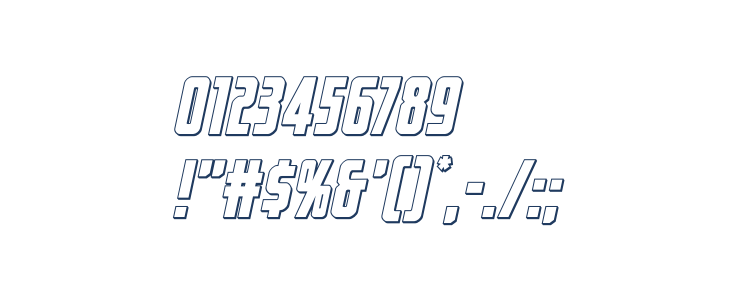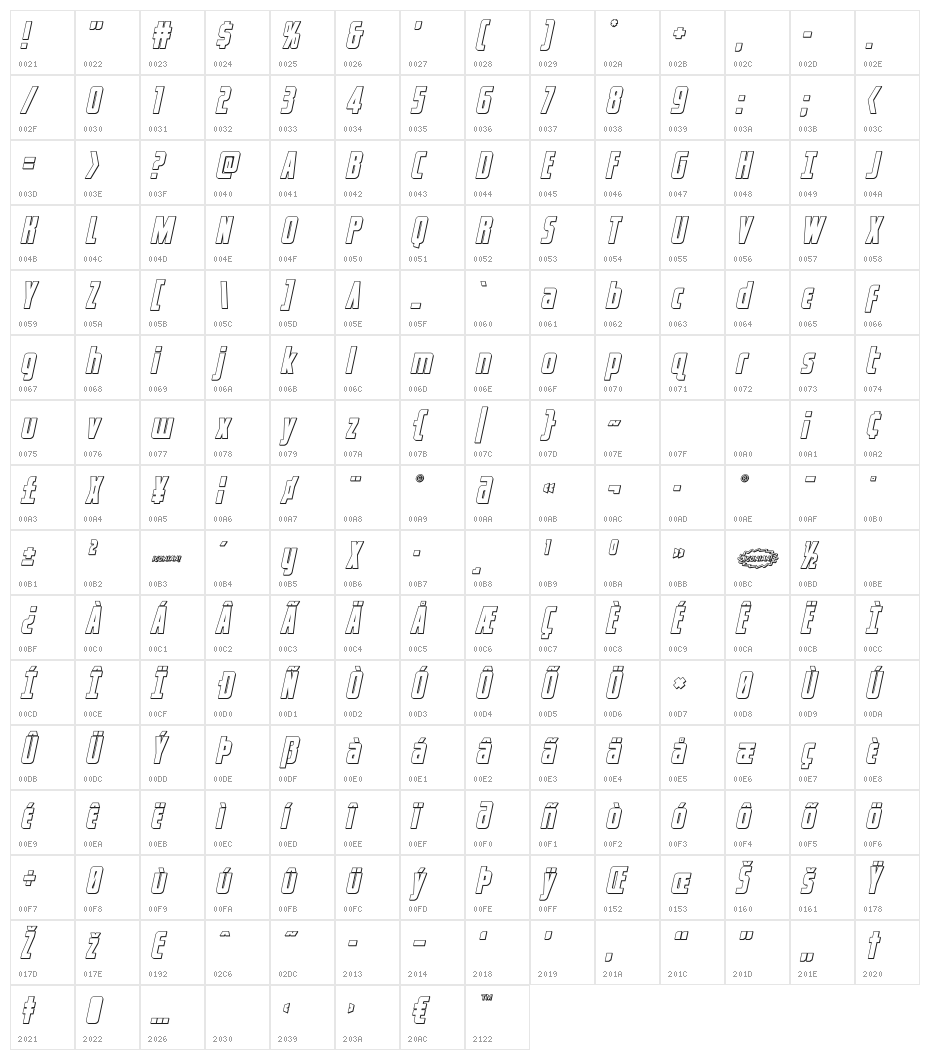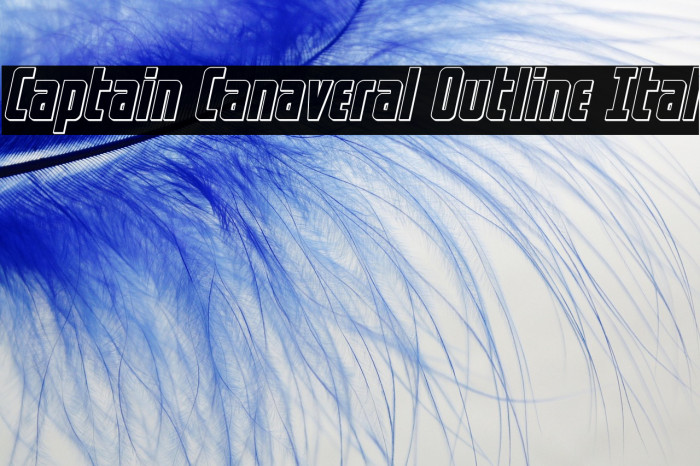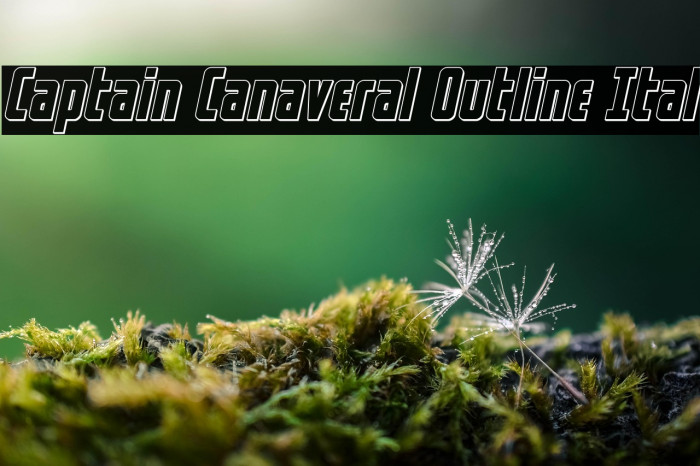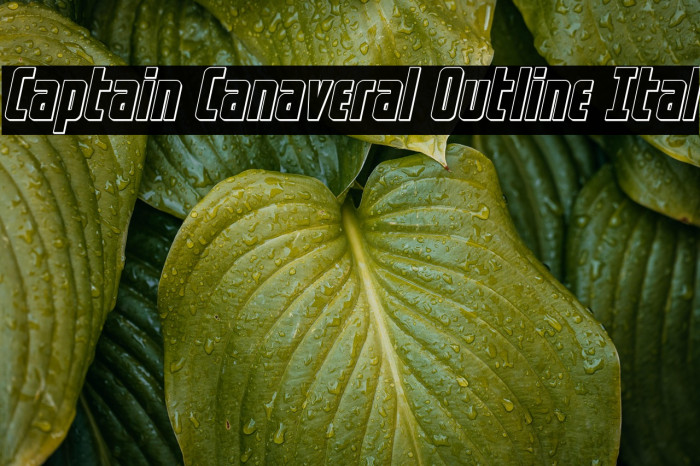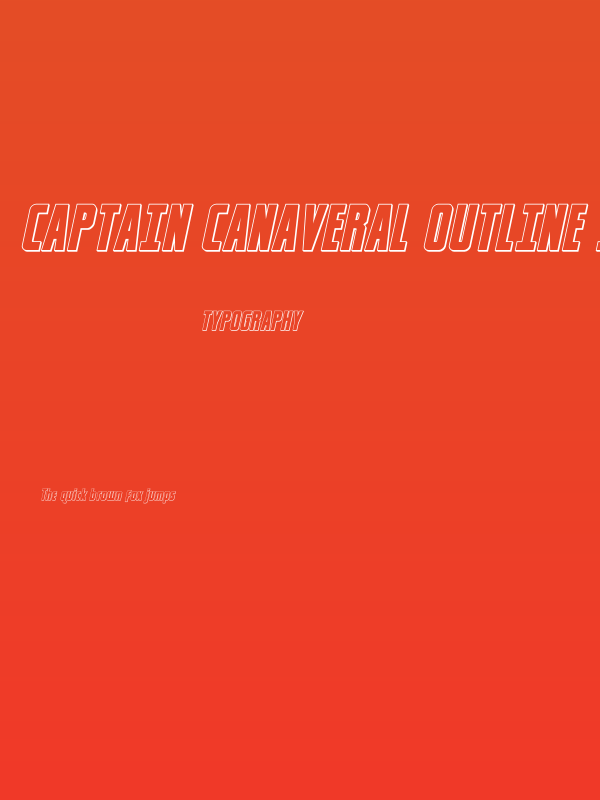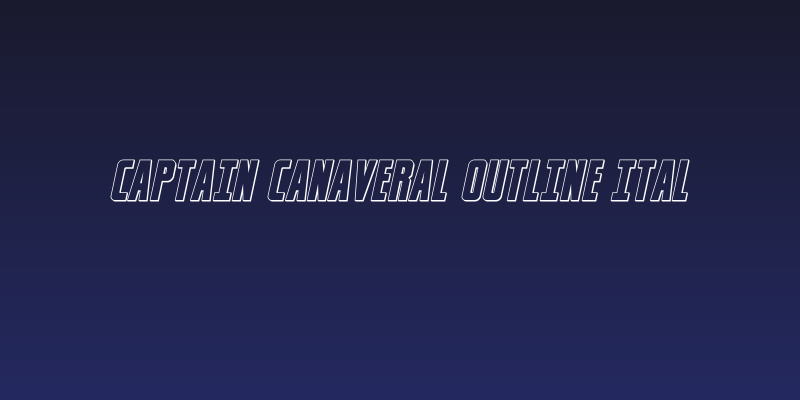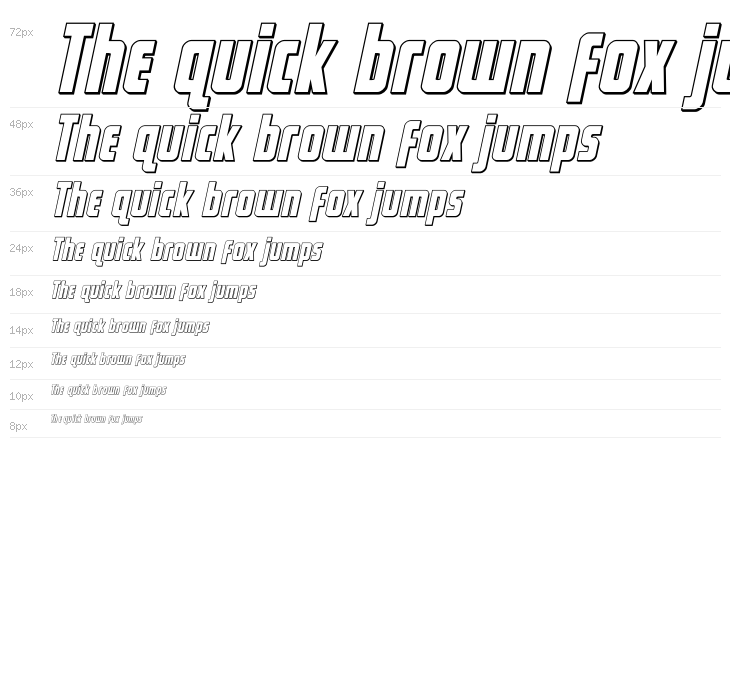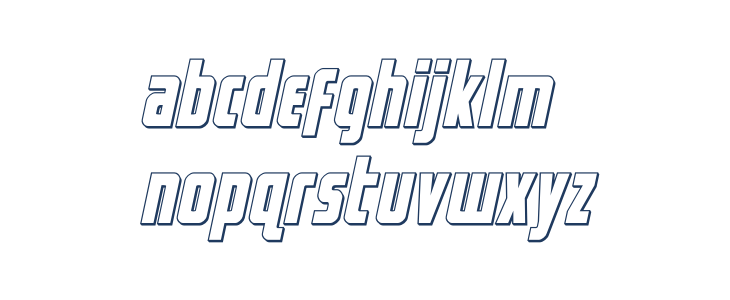
Captain Canaveral Outline Ital Font
Captain Canaveral Outline Ital Description
This font features a bold, outlined style with a modern and futuristic aesthetic. The uppercase and lowercase letters are designed with a consistent slant, giving it an italicized appearance. The characters are outlined, creating a hollow effect that adds a unique dimension to the text. The numbers and special characters follow the same design principles, ensuring uniformity across all elements. This font's geometric shapes and clean lines make it suitable for projects that require a contemporary and eye-catching look.